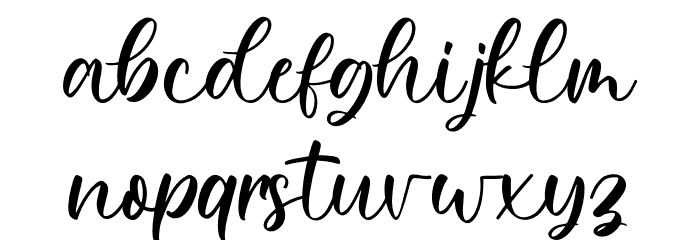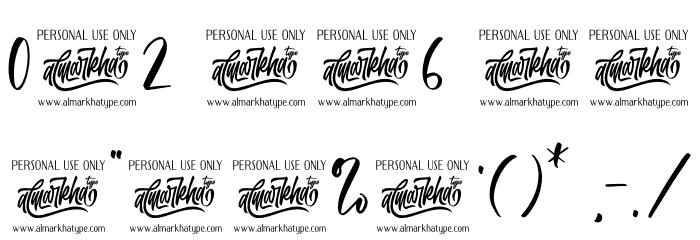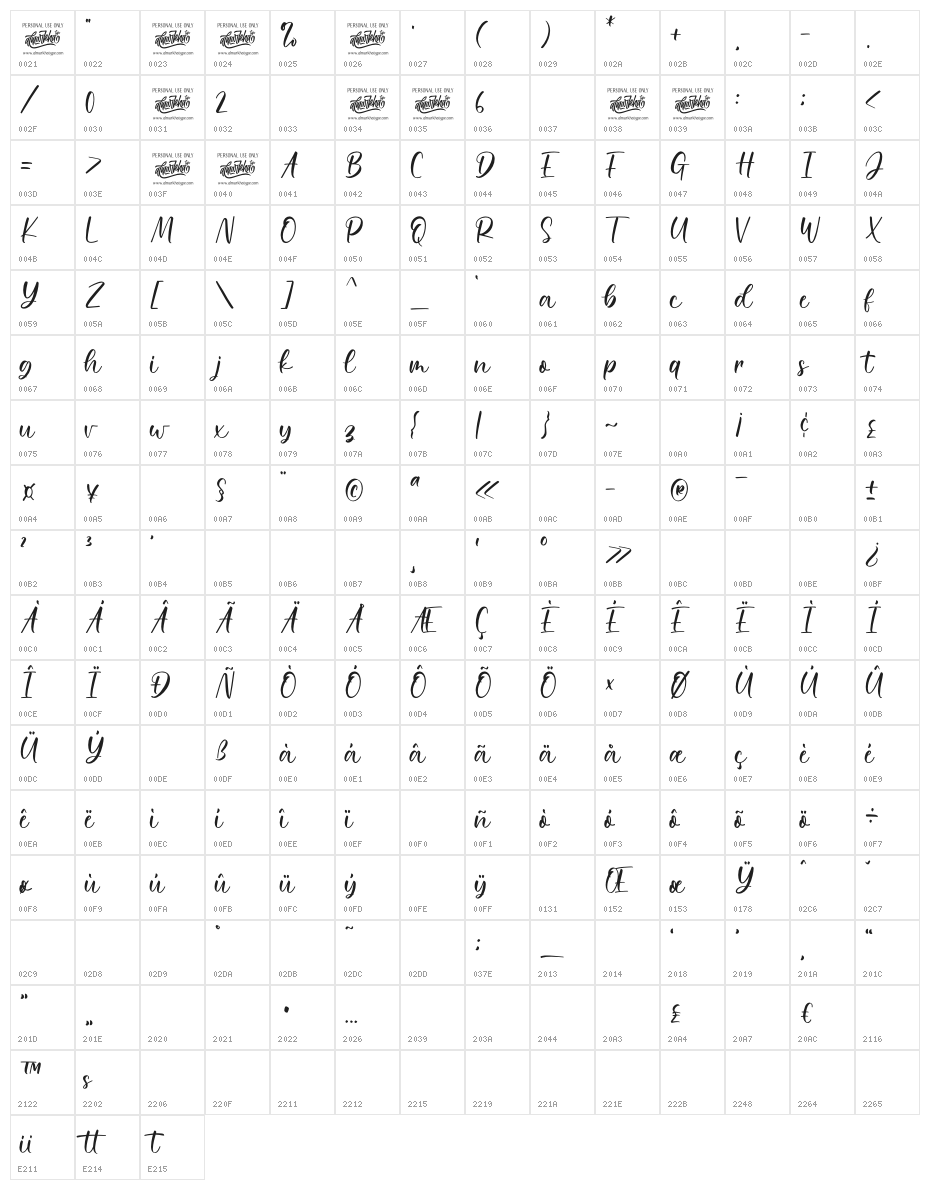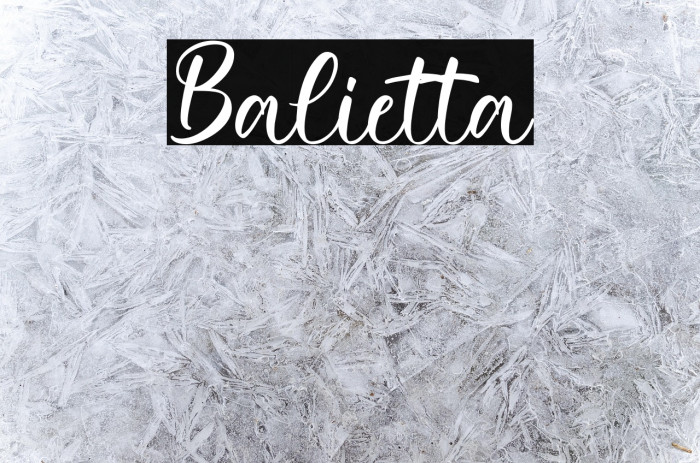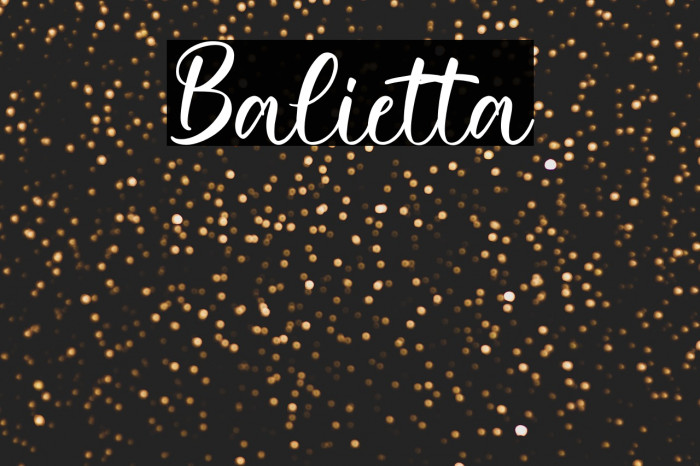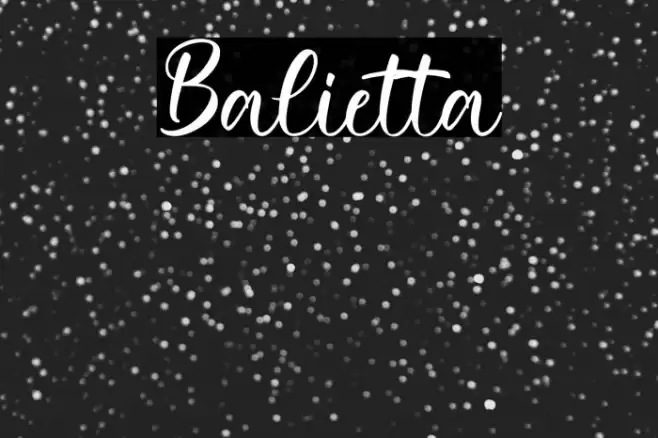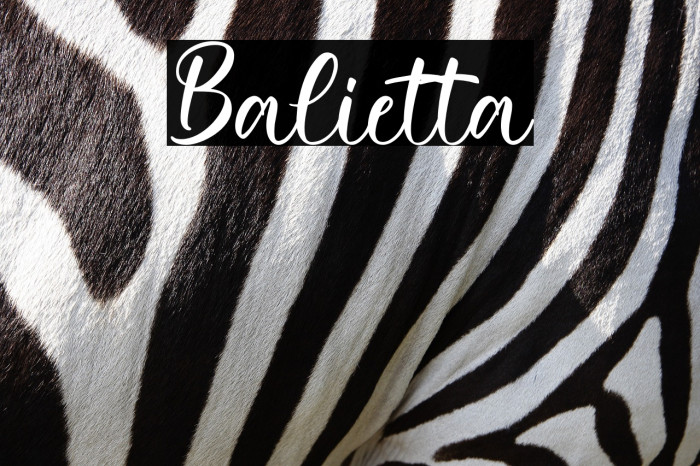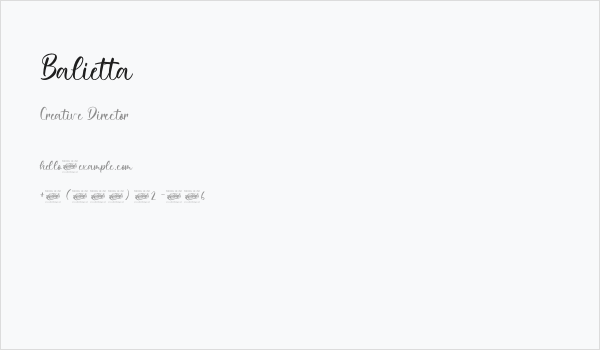
Balietta Font
This font features a flowing, handwritten style with a modern and elegant touch. The uppercase letters are tall and slightly slanted, giving a sense of movement and grace. The lowercase letters maintain a consistent flow, with smooth curves and a natural, organic feel. The numbers and special characters complement the overall style, maintaining the same fluidity and elegance. This font is perfect for projects that require a personal, artistic touch, such as invitations, branding, and creative designs.
A modern, elegant handwritten font with a flowing style.
- Proposed Projects: Ideal for wedding invitations, branding, logos, and artistic projects.
- Use Case: Logos, Invitations, Creative Designs